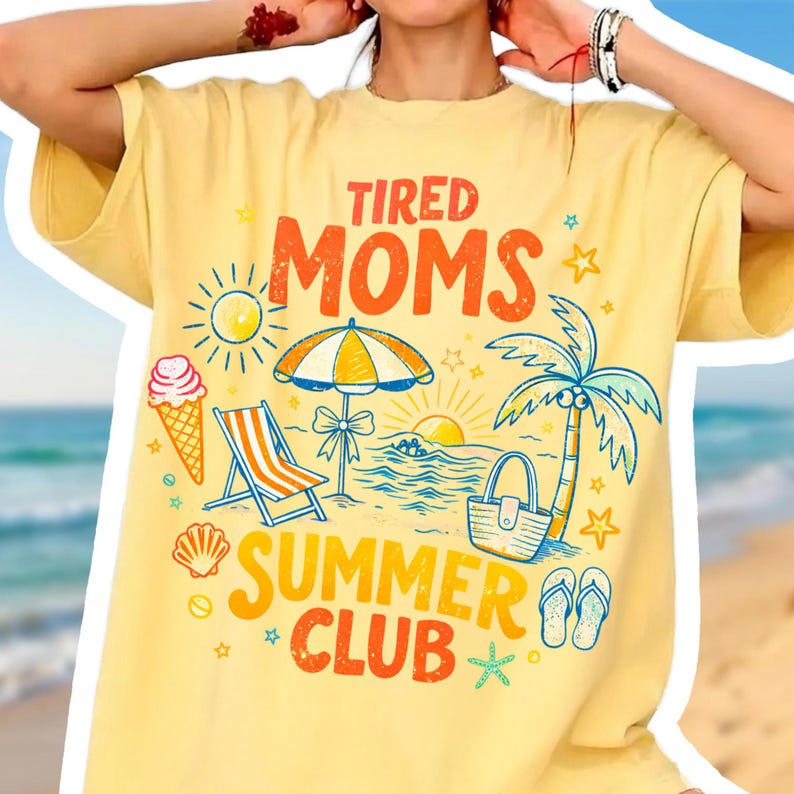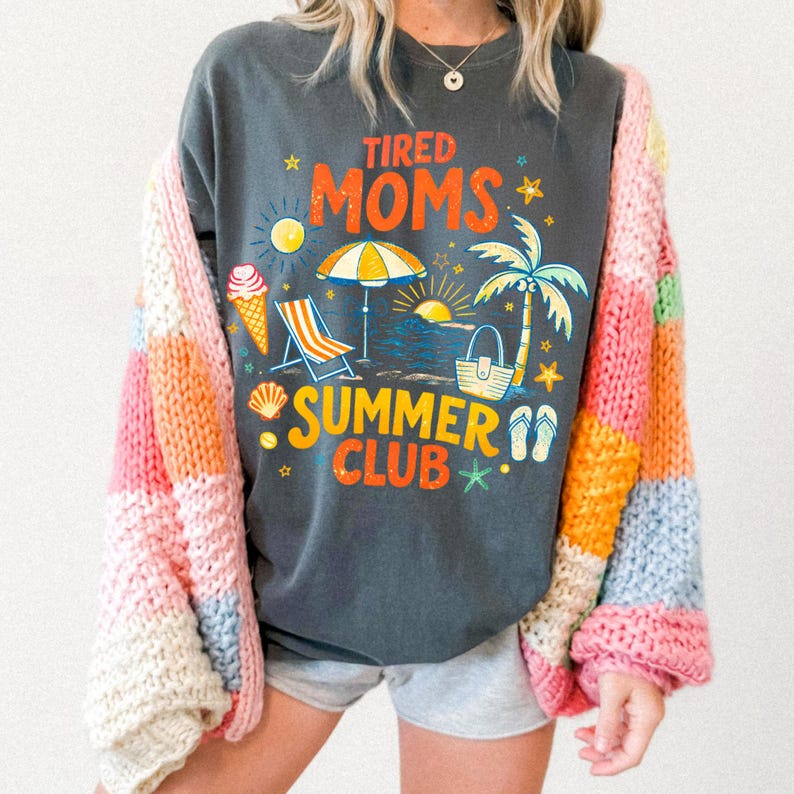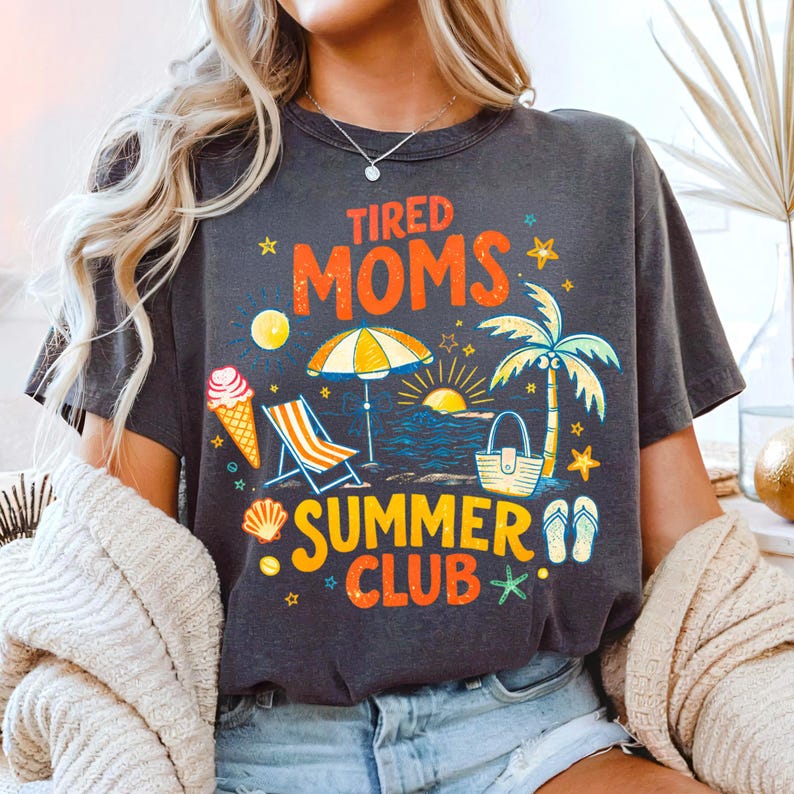
Dive into Summer Fun: The Ultimate Tired Moms Summer Club PNG Bundle for Crafters
Summer is calling, and for many moms, that means balancing beach days with busy schedules. But who says you can’t do it all with style and a touch of playful rebellion? Introducing the Tired Moms Summer Club PNG Bundle, a vibrant and versatile digital download designed to inject a dose of nautical coquette charm into your crafting projects. This isn’t just a design; it’s an invitation to embrace the “Beach Bum Aesthetic” and create personalized apparel and decor that truly speaks to the modern mama. Perfect for sublimation, DTF projects, or any creative endeavor, this bundle is your secret weapon for crafting unique, energetic pieces this season.
Embrace the Nautical Coquette Vibe: Design Features for Every Crafter
Unleash your creative spirit with a design bundle that’s as multifaceted as you are. The Tired Moms Summer Club PNG features a captivating blend of “Nautical Beach Bum” elements with an undeniably chic “Coquette Aesthetic.” Imagine trendy “Salty Text” adorned with delicate Coquette Bow Accents, all seamlessly integrated with classic Nautical Theme Graphics. This isn’t just a static image; it’s a comprehensive “Nautical Coquette Mama Font Bundle” that includes a Full A-Z Letter Set and Matching 0-9 Festive Numbers, empowering you to customize and personalize your projects with ease. Each element is crafted as a high-resolution (300 DPI) PNG file with a transparent background, ensuring crisp, professional results whether you’re working on vibrant shirts, cozy hoodies, or unique home decor. Crafters will appreciate the instant digital download, allowing you to dive straight into designing without delay.
From Beach Days to Mother’s Day: Endless Creativity for Salty Mamas
The versatility of this digital download makes it an indispensable tool for every crafter and a fantastic “Mothers Day Gift Digital Download.” Envision crafting custom “Mother’s Day Shirts” that celebrate the unsung heroes of summer, or designing “Summer Vacation Hoodies” for those breezy beach evenings. This bundle is also ideal for creating stylish “Beach Day Tote Bags,” personalized family mugs, or even unique “Spring Break Apparel” that stands out from the crowd. For “Mom Club Event Gear,” the “Tired Moms Summer Club PNG” provides a cohesive and fun aesthetic that unites your group. Whether you’re a seasoned crafter looking for fresh inspiration or searching for the perfect gift for a “Salty Mama” who loves beach vacations, this bundle offers endless possibilities for expression.